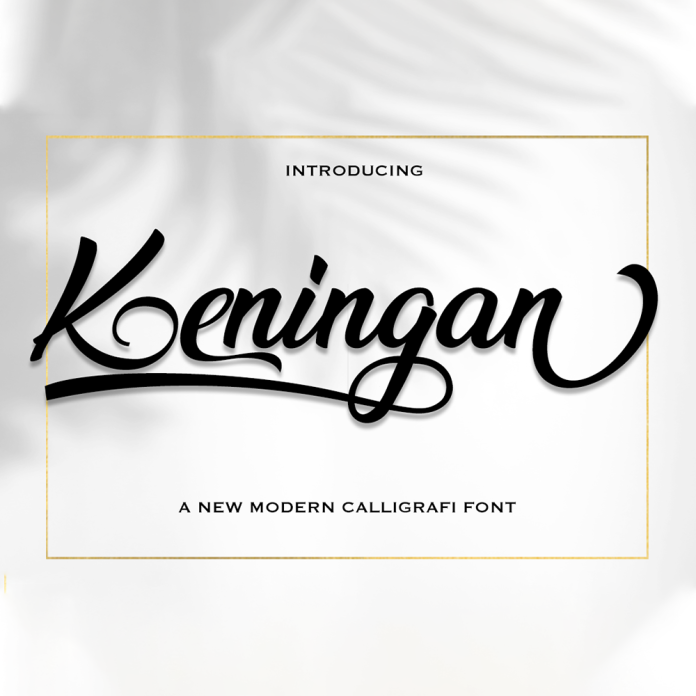
Keningan font is a stylish and elegant script font with a brush effect. It features fluid strokes and a modern design, perfect for adding a touch of sophistication to any project. Ideal for logos, branding, invitations, and more.